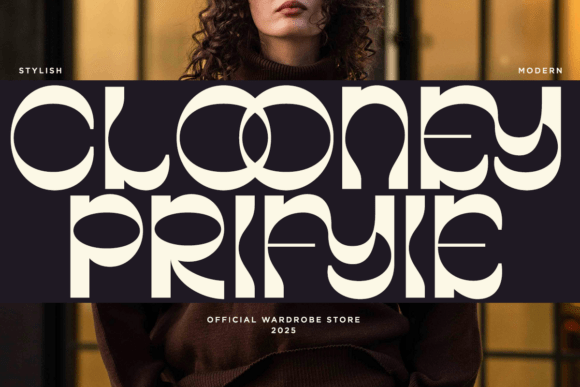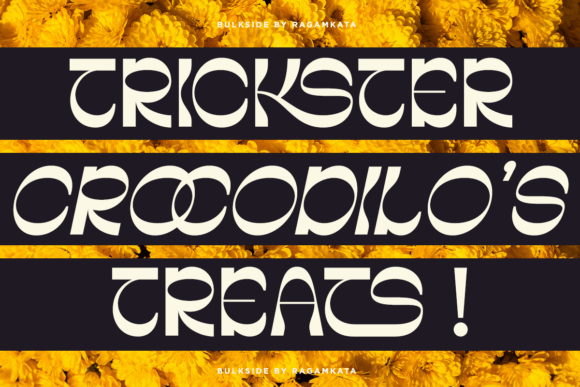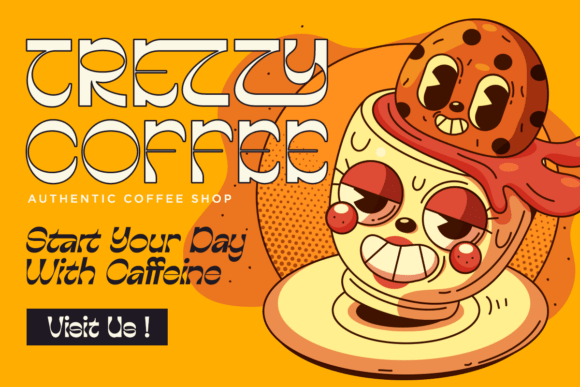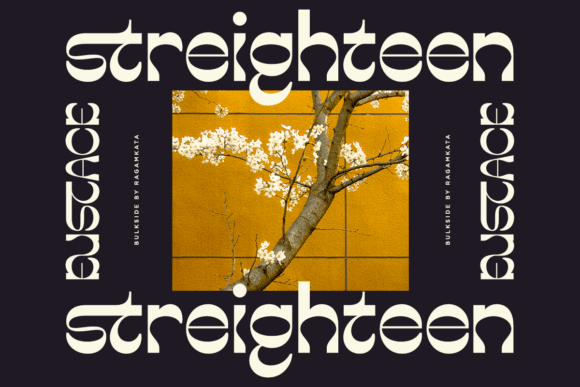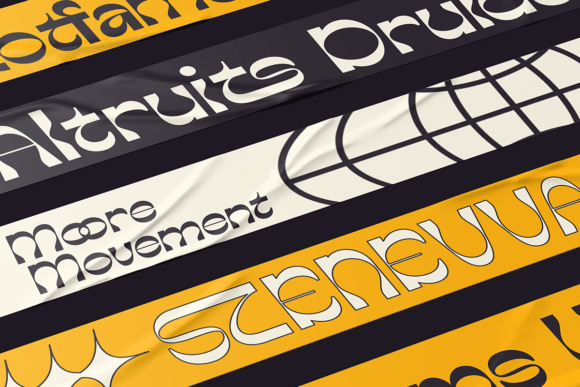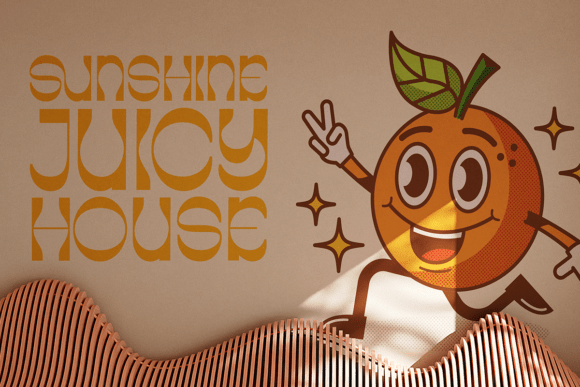
Introducing Bulkside Font: The Ultimate Retro-Funk Display Typeface
Are you tired of using the same old fonts for your design projects? Look no further than the Bulkside Font, a captivating display sans typeface that masterfully blends retro-funk vibes with modern, sleek design. This bold and stylized font is perfect for designers and crafters looking to add a unique personality to their work.
A Perfect Blend of Retro and Modern Design
The Bulkside Font stands out with its highly decorative letterforms, featuring dramatic curves and fluid, rounded shapes reminiscent of 1970s aesthetics and art nouveau typography. The font’s retro-funk vibe is balanced with a modern, sleek design, making it perfect for a wide range of applications, from branding and music posters to large headlines and packaging.
Key Features of Bulkside Font
- Highly Decorative Letterforms: The Bulkside Font features dramatic curves and fluid, rounded shapes that give it a unique and stylish look.
- Retro-Funk Vibe: The font’s design is inspired by the 1970s aesthetics and art nouveau typography, giving it a fun and groovy feel.
- Modern and Sleek Design: The font’s modern design ensures that it looks great in a wide range of applications, from digital to print.
- REGULAR and ITALIC Styles: The Bulkside Font comes with two styles, allowing designers to add variety to their work.
The Bulkside Font is perfect for designers and crafters looking to add a unique personality to their work. Whether you’re working on a branding project, creating music posters, or designing packaging, this font is sure to make a statement. Its bold and stylized design ensures that it stands out in any application.
Why Choose Bulkside Font?
- Unique Design: The Bulkside Font has a unique and stylish design that sets it apart from other fonts.
- Versatility: The font comes with two styles, making it versatile enough for a wide range of applications.
In conclusion, the Bulkside Font is a captivating display sans typeface that is perfect for designers and crafters looking to add a unique personality to their work. With its retro-funk vibe, modern design, and highly decorative letterforms, this font is sure to make a statement in any application. Whether you’re working on a branding project, creating music posters, or designing packaging, the Bulkside Font is a great choice.
REGULAR and ITALIC Styles
The Bulkside Font comes with two styles:
- REGULAR: The regular style is perfect for headlines, titles, and other applications where a bold statement is needed.
- ITALIC: The italic style adds a touch of elegance and sophistication to any design.